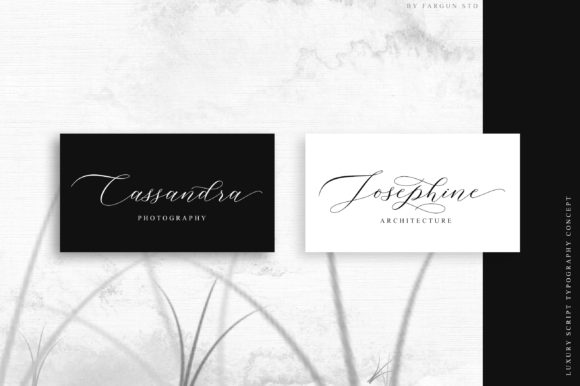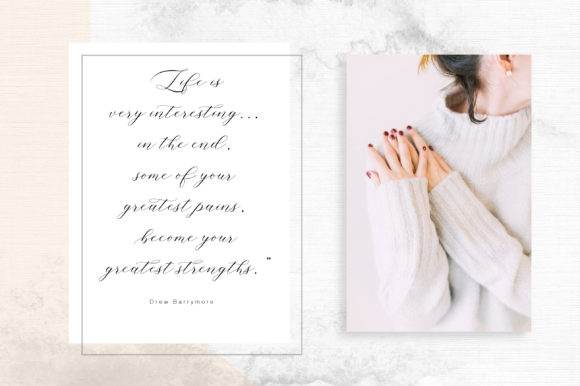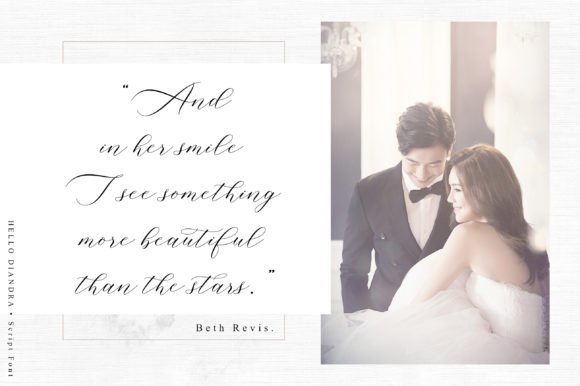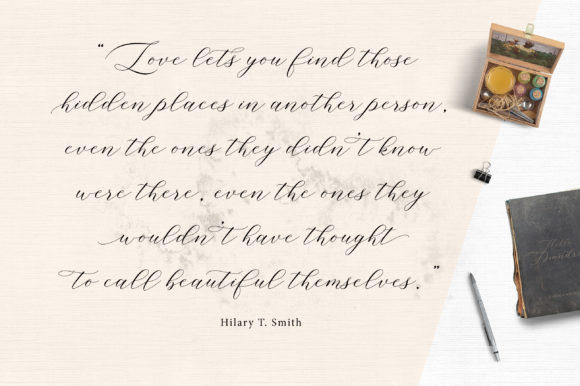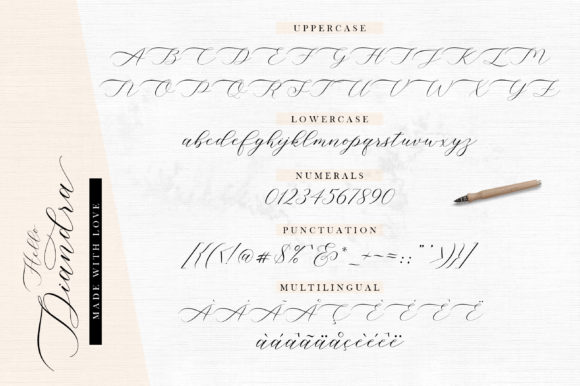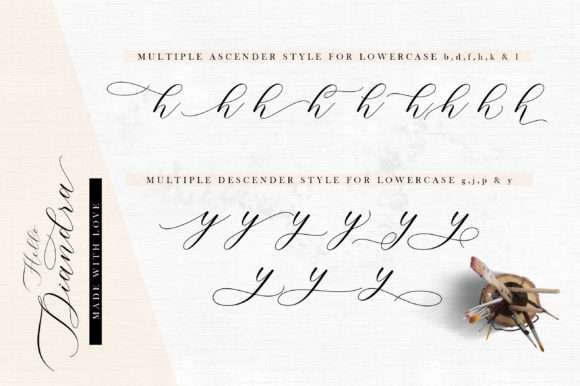
Hello Diandra Font: Elevate Your Design with Confidence and Style
Hello Diandra font is a stunning addition to the world of typography, offering a unique blend of bold swashes and smooth curves that can elevate any design project. This beautiful font is designed to deliver messages with confidence and style, making it a perfect choice for designers, crafters, and anyone looking to add a touch of elegance to their work.
The Characteristics of Hello Diandra Font
Hello Diandra font boasts a distinctive appearance, characterized by its bold swashes and smooth curves. These features work together to create a sense of fluidity and movement, making the font perfect for headlines, titles, and other design elements that require a touch of drama and flair.
The font’s bold swashes add a level of sophistication and elegance, making it ideal for luxury brands, high-end products, and premium services. On the other hand, the smooth curves provide a sense of approachability and friendliness, making it suitable for a wide range of design applications, from wedding invitations to business cards.
Why Choose Hello Diandra Font?
There are several reasons why Hello Diandra font stands out from the crowd:
- Unique and eye-catching design: Hello Diandra font is designed to grab attention and make a statement. Its bold swashes and smooth curves create a unique visual identity that sets it apart from other fonts.
- Versatility: This font is highly versatile and can be used for a wide range of design applications, from print materials to digital projects.
- Ease of use: Hello Diandra font is easy to read and understand, making it perfect for body text, headlines, and titles.
- Customizable: The font comes with a range of customization options, allowing designers to experiment with different styles and effects.
How to Use Hello Diandra Font in Your Design Projects
Hello Diandra font can be used in a variety of design projects, including:
- Wedding invitations and stationery: The font’s elegant and sophisticated design makes it perfect for wedding invitations, save-the-date cards, and other stationery.
- Branding and packaging: Hello Diandra font can be used to create stunning brand identities, product labels, and packaging designs.
- Signage and displays: The font’s bold and eye-catching design makes it ideal for signage, displays, and other visual elements that require a touch of drama and flair.
- Digital projects: Hello Diandra font can be used in digital projects, such as website headers, social media graphics, and email marketing campaigns.
Tips for Getting the Most Out of Hello Diandra Font
To get the most out of Hello Diandra font, here are some tips to keep in mind:
- Experiment with different sizes and styles: The font looks great in a range of sizes and styles, so don’t be afraid to experiment and find the perfect combination for your design project.
- Pair it with complementary fonts: Hello Diandra font pairs well with a range of other fonts, so try pairing it with complementary fonts to create a unique visual identity.
- Use it consistently: To create a cohesive brand identity, use Hello Diandra font consistently across all your design materials.
Hello Diandra font is a stunning addition to any design project, offering a unique blend of bold swashes and smooth curves that can elevate your message with confidence and style. With its versatility, ease of use, and customization options, this font is perfect for designers, crafters, and anyone looking to add a touch of elegance to their work. So why not give Hello Diandra font a try and see the difference it can make in your design projects?